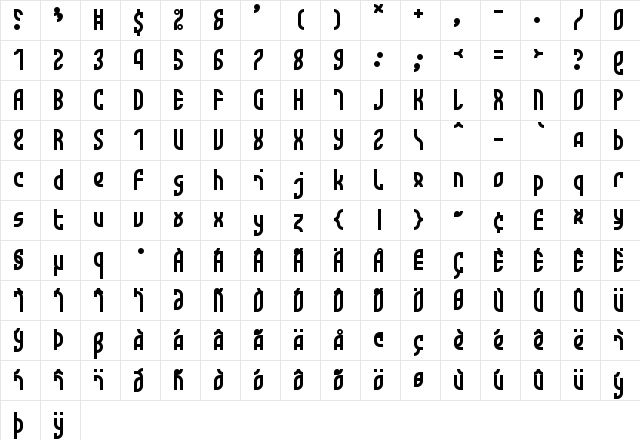
Complete Monotwist Regular glyph index. Displaying only characters natively supported by Monotwist Regular font.
Monotwist uses fixed-width spacing throughout, giving it the structured, systematic character associated with coding environments and technical documentation.